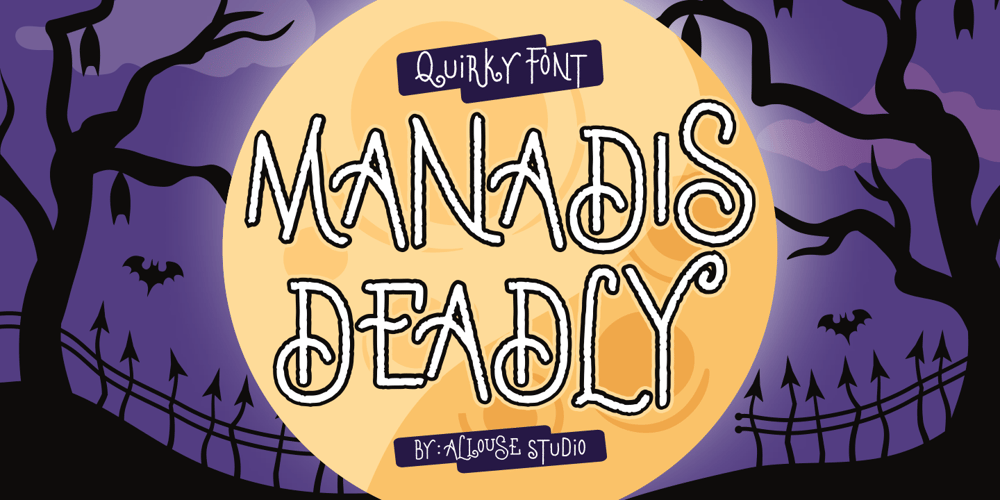
Manadis Deadly
Manadis Deadly font
Manadis Deadly Font Family was designed by Fachrizal Yusuf and published by Allouse Studio. Manadis Deadly contains 1 styles and family package options. Proudly Present, Manadis Deadly a Quirky Font.Manadis Deadly come with many Stylistic-Alternates for Uppercase and Lowercase. This also come along with Multi-Lingual Support so thats all will give you more choices to play arround.We highly recommend using a program that supports OpenType features and Glyphs panels like many of Adobe apps and Corel Draw, so you can see and access all Glyph variations.Manadis Deadly is perfect for any tittle, logo, product packaging, branding project, megazine, social media, or just used to express words above the background.Enjoy the font, feel free to comment or feedback, send me PM or email. Thank You!